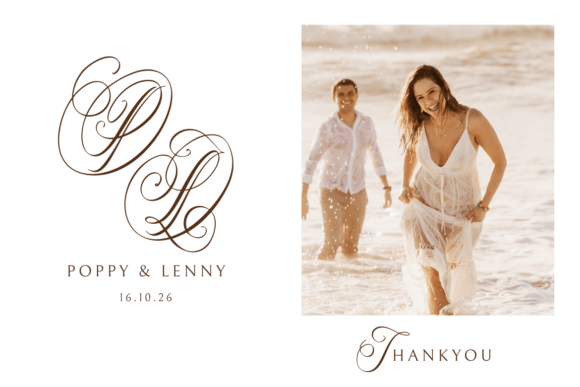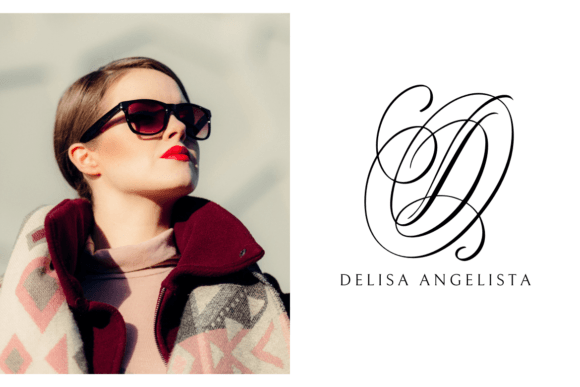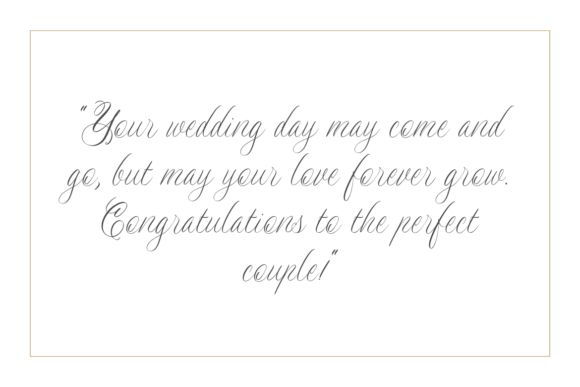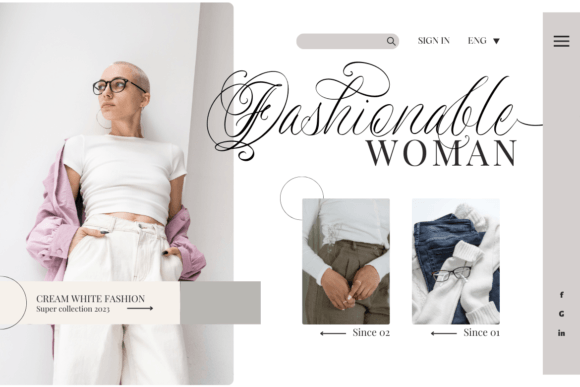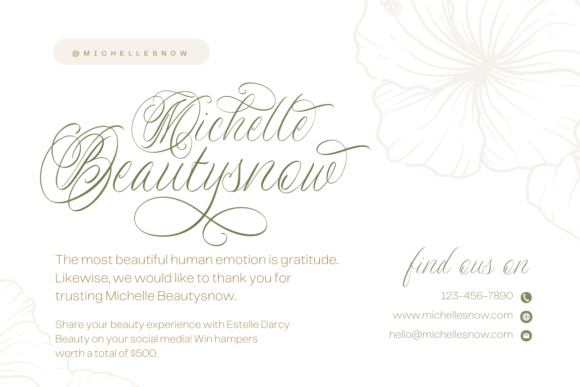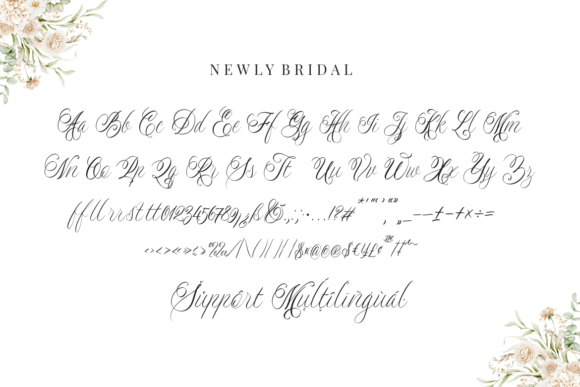
Newly Bridal Font
Newly Bridal is a beautiful script font carefully created with a touch of elegance. Whether you’re looking for fonts for wedding themes, instagram or calligraphy scripts for DIY projects, this font will turn any creative idea into a true piece of art! This font is PUA encoded which means you can access all of the glyphs and swashes with ease!